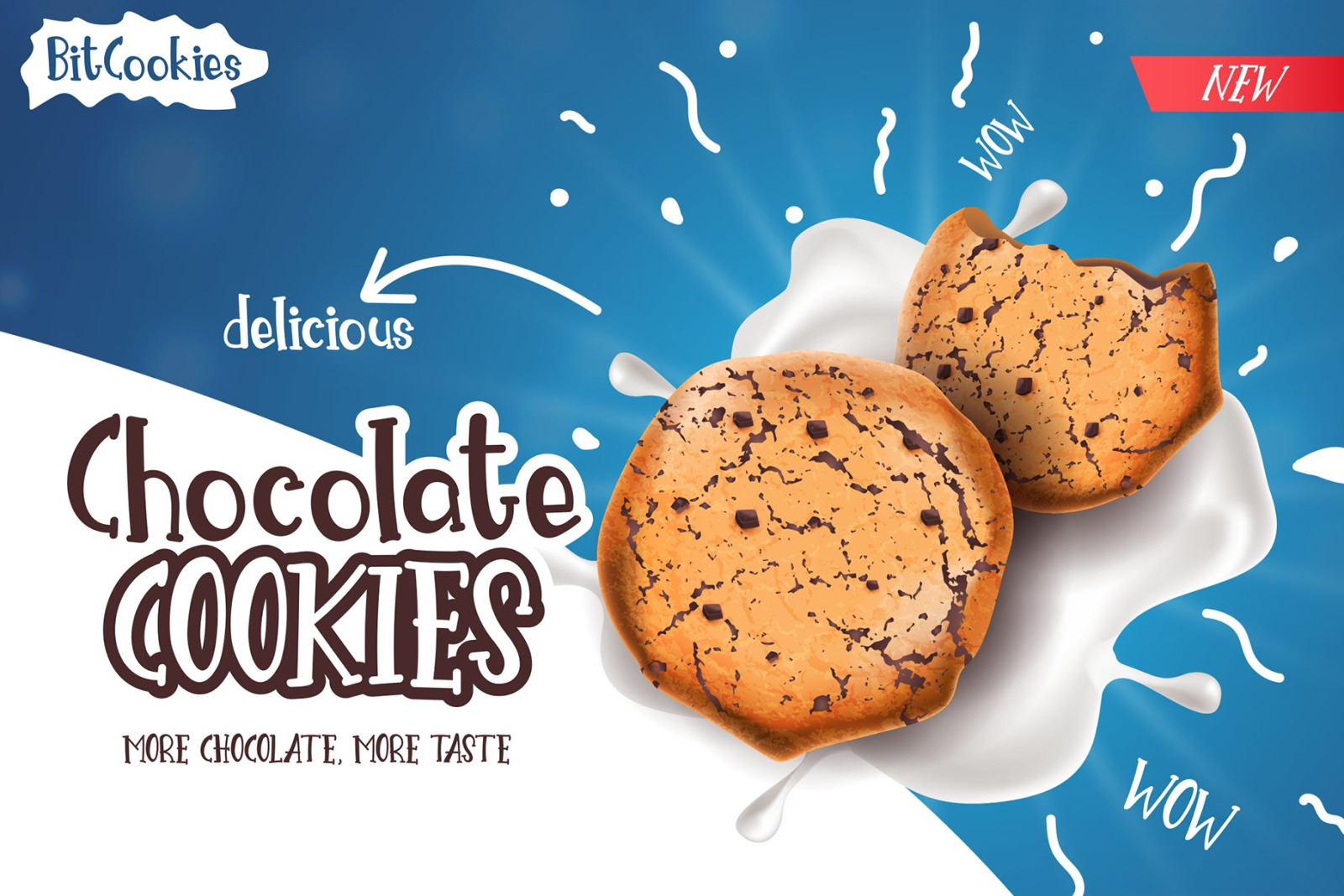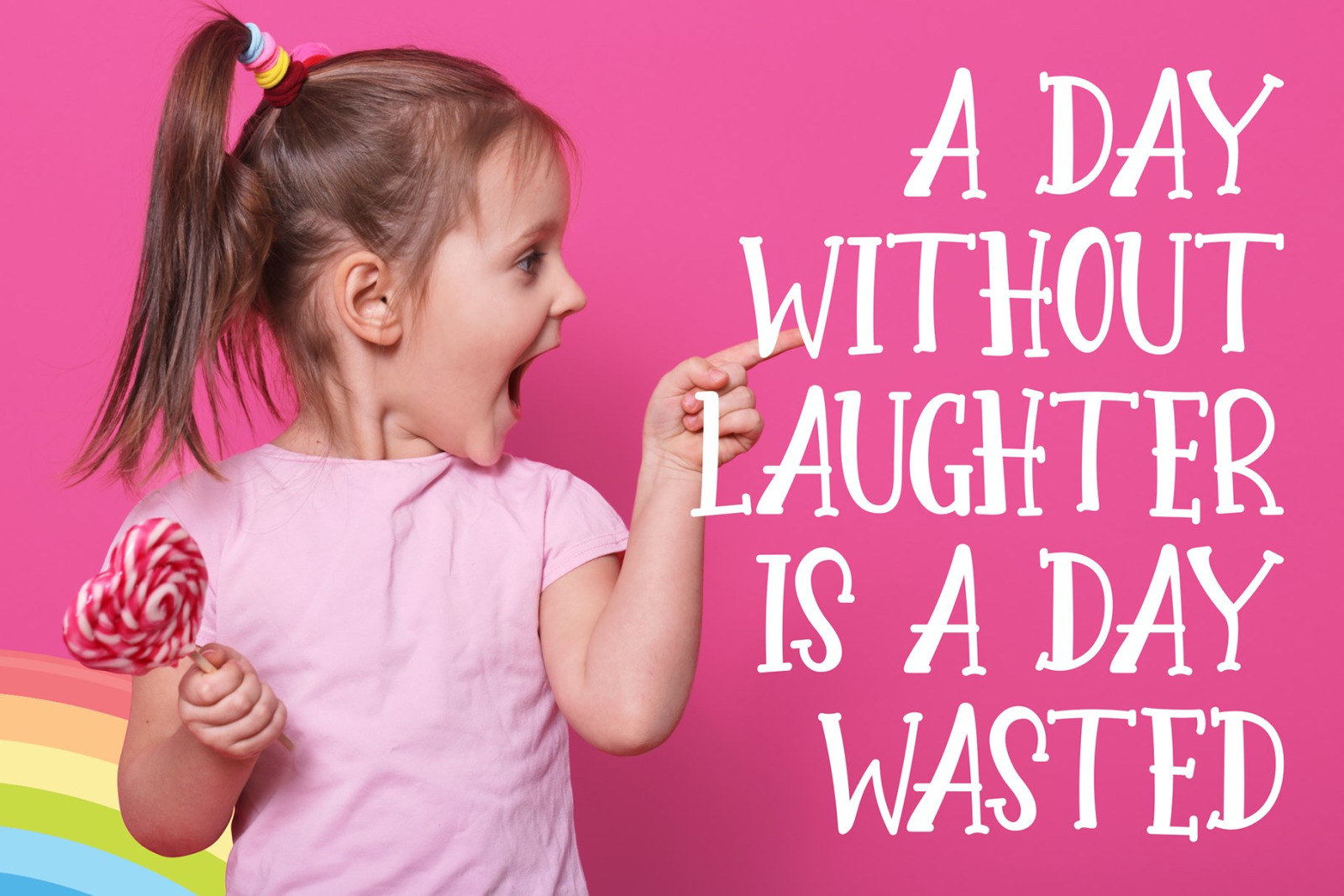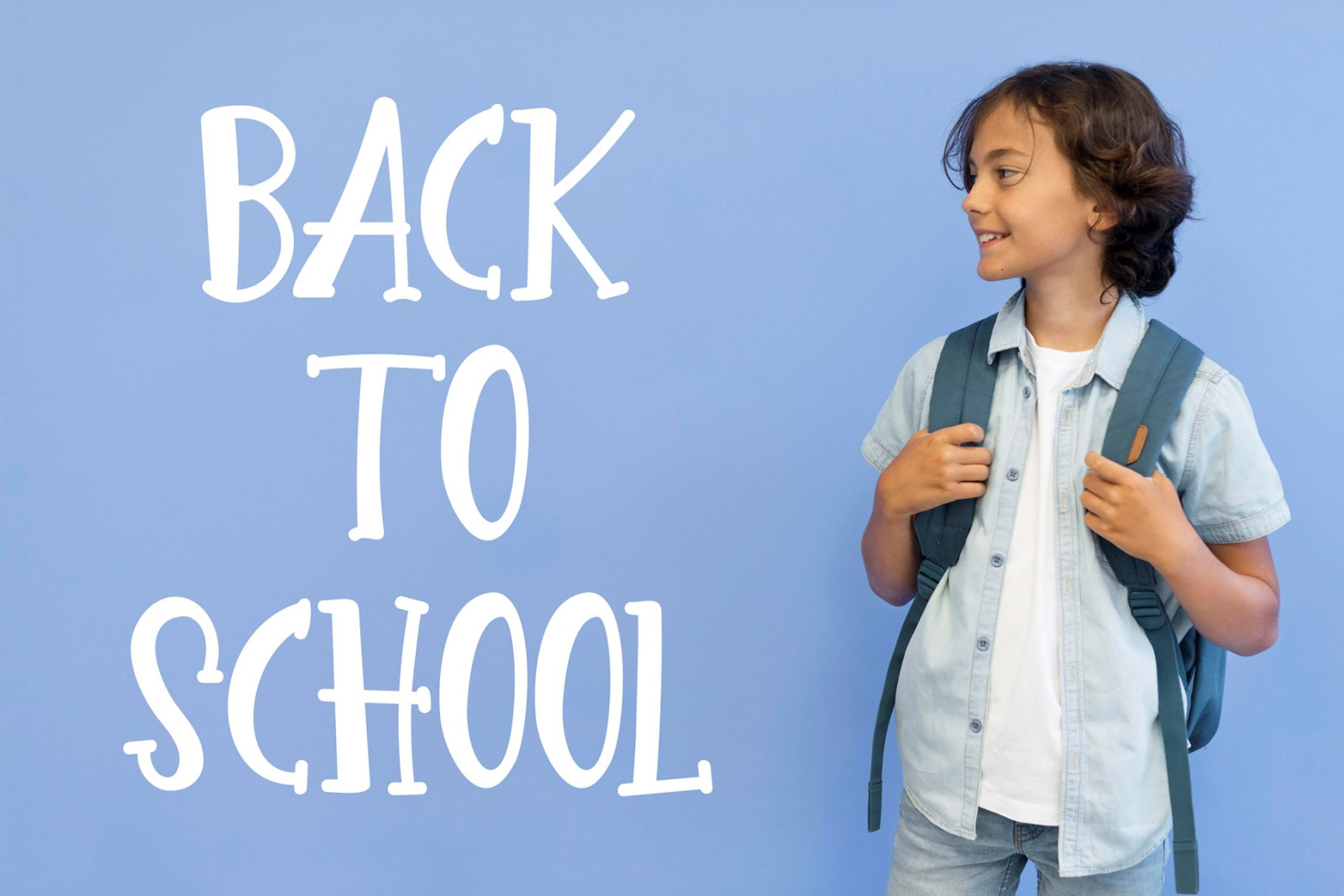
Sweety Jane Font
Say hello to Sweety Jane font.
Made with love and joy. Comic look, so it will make your design more beautiful, cute, fun, and colorful.